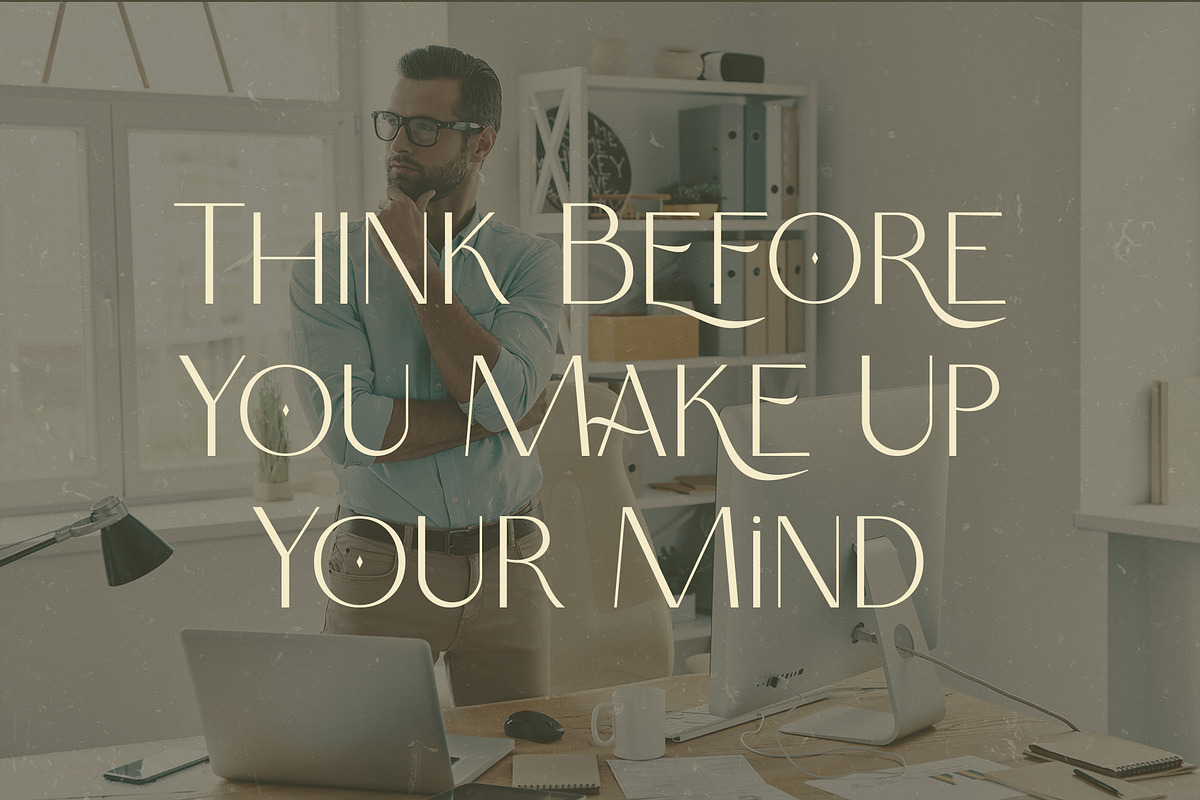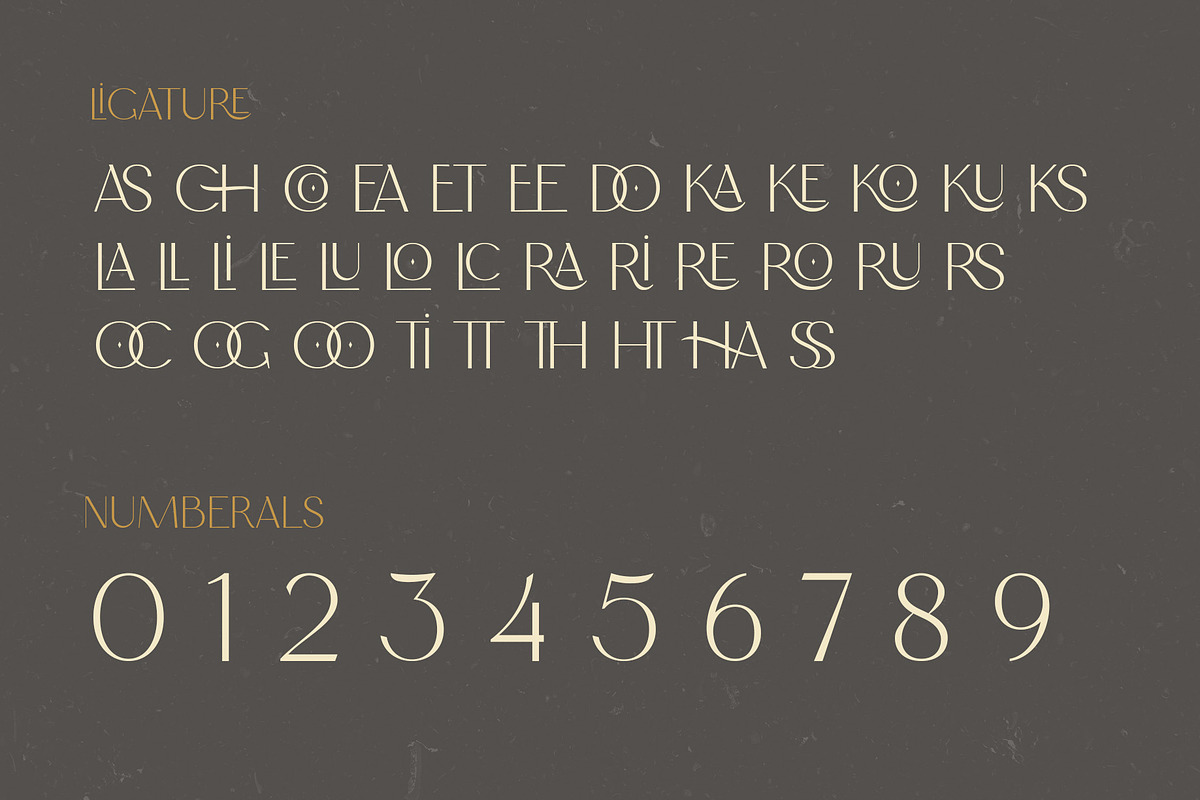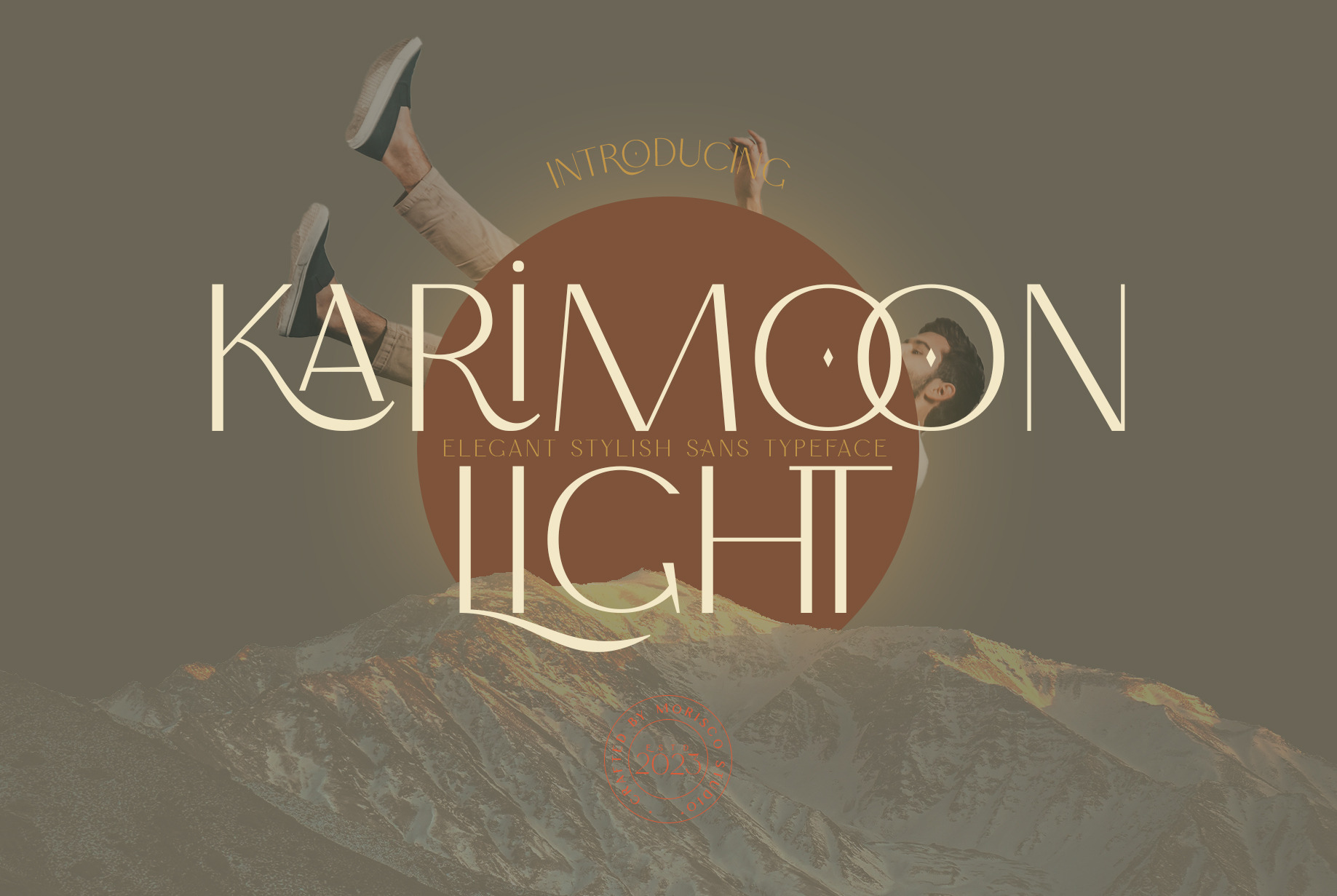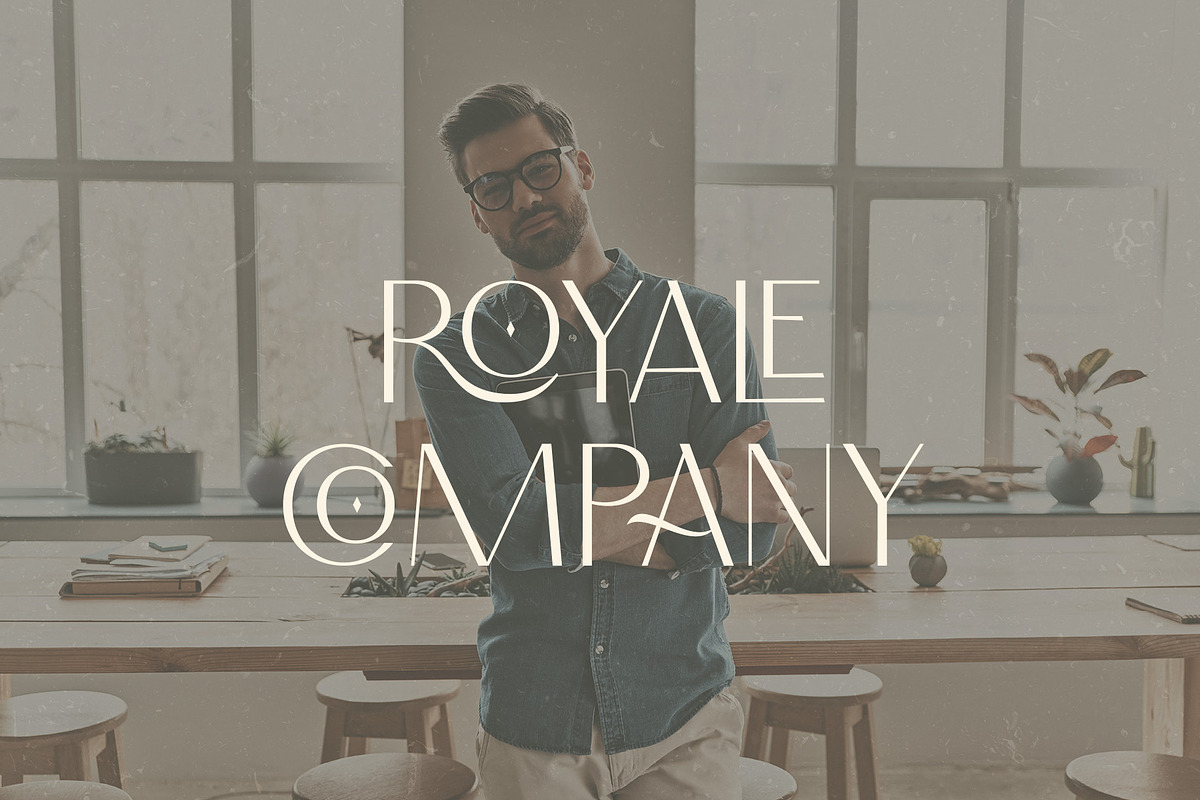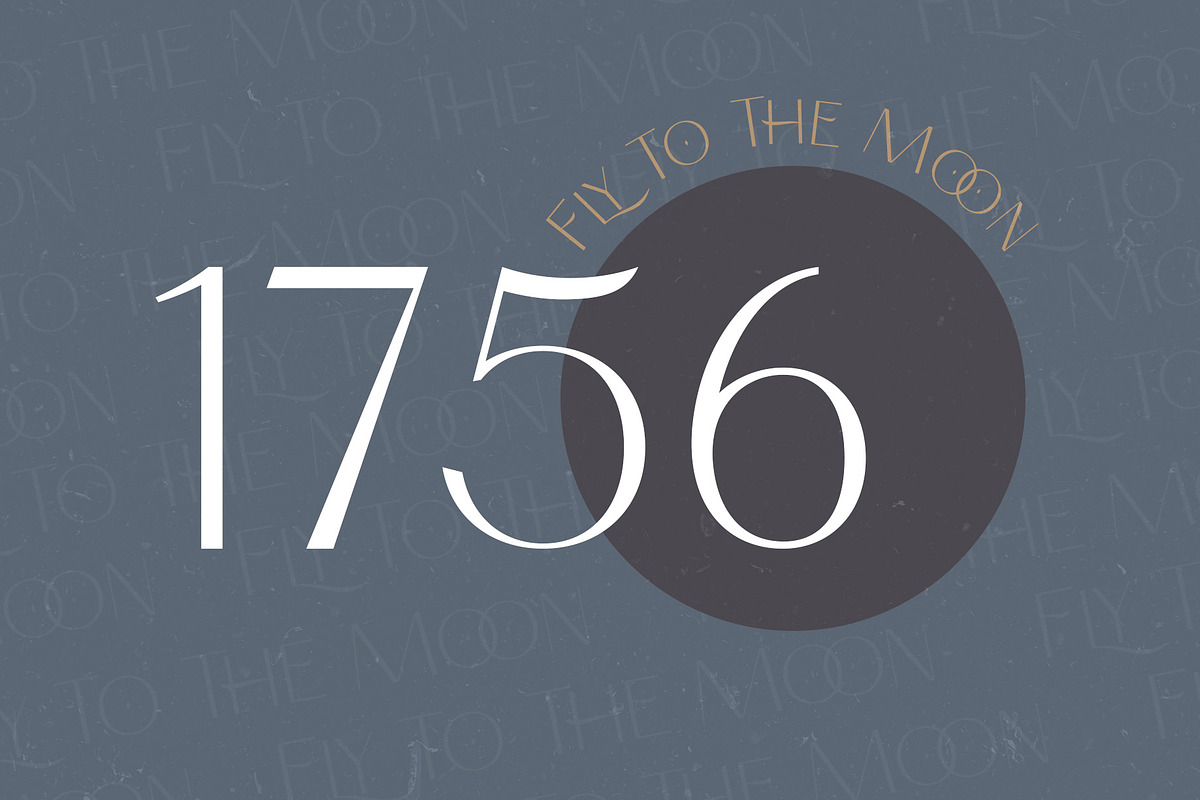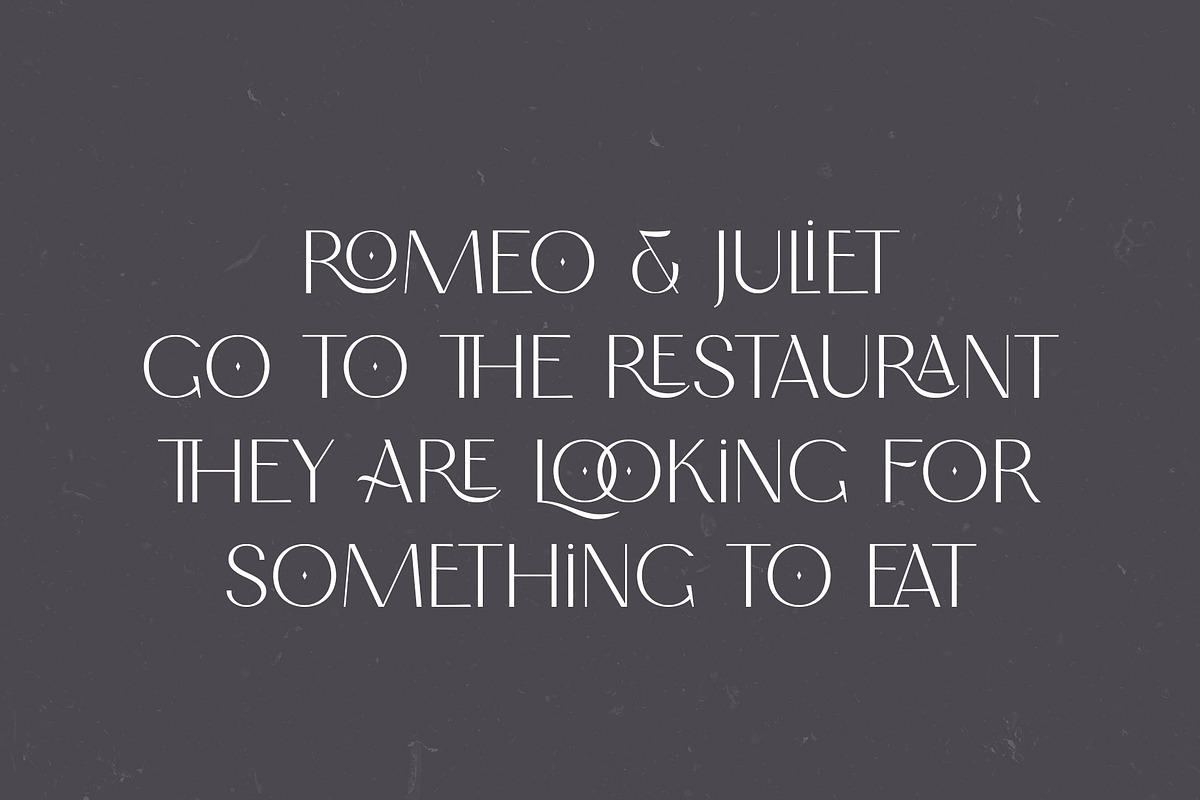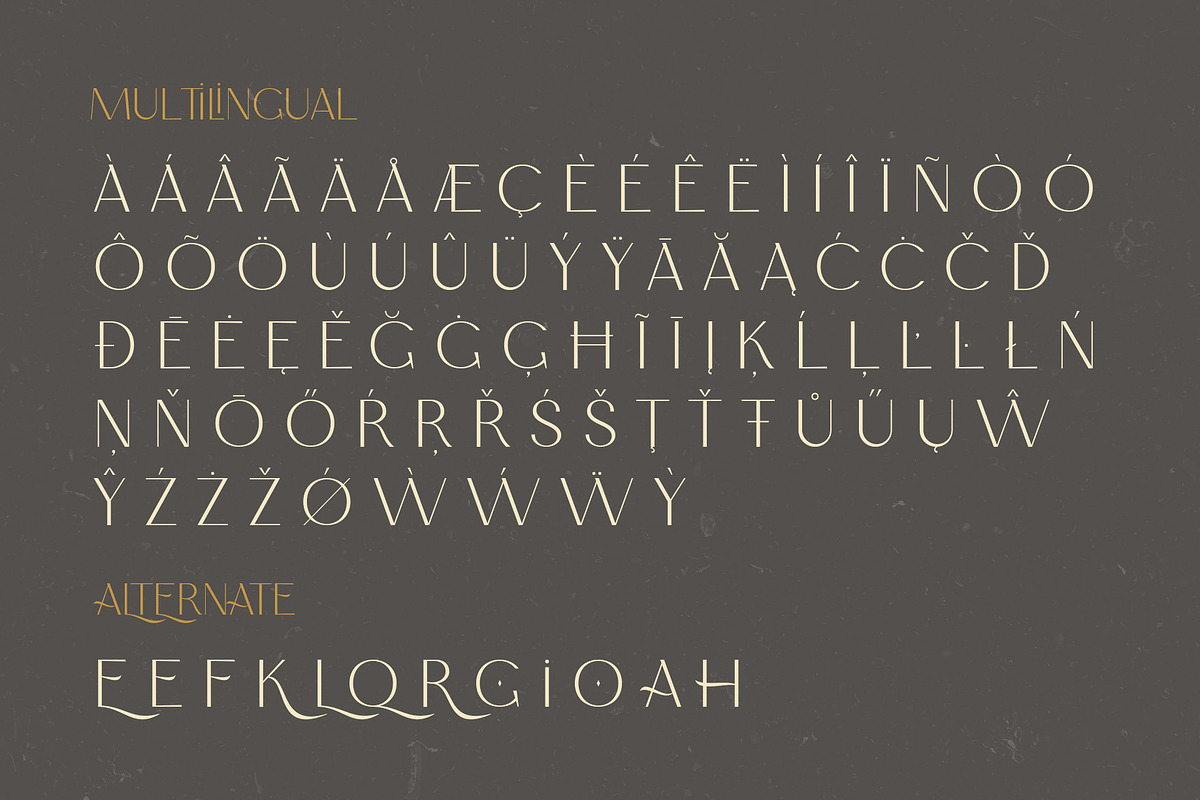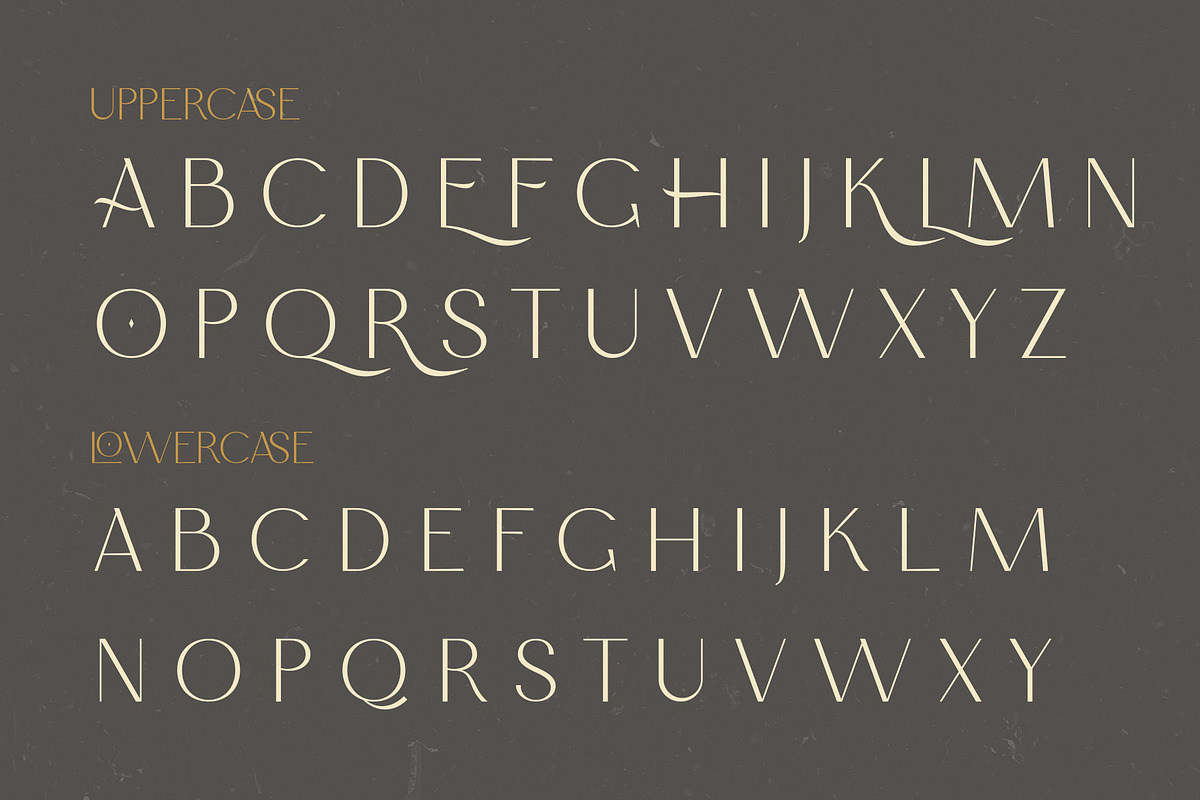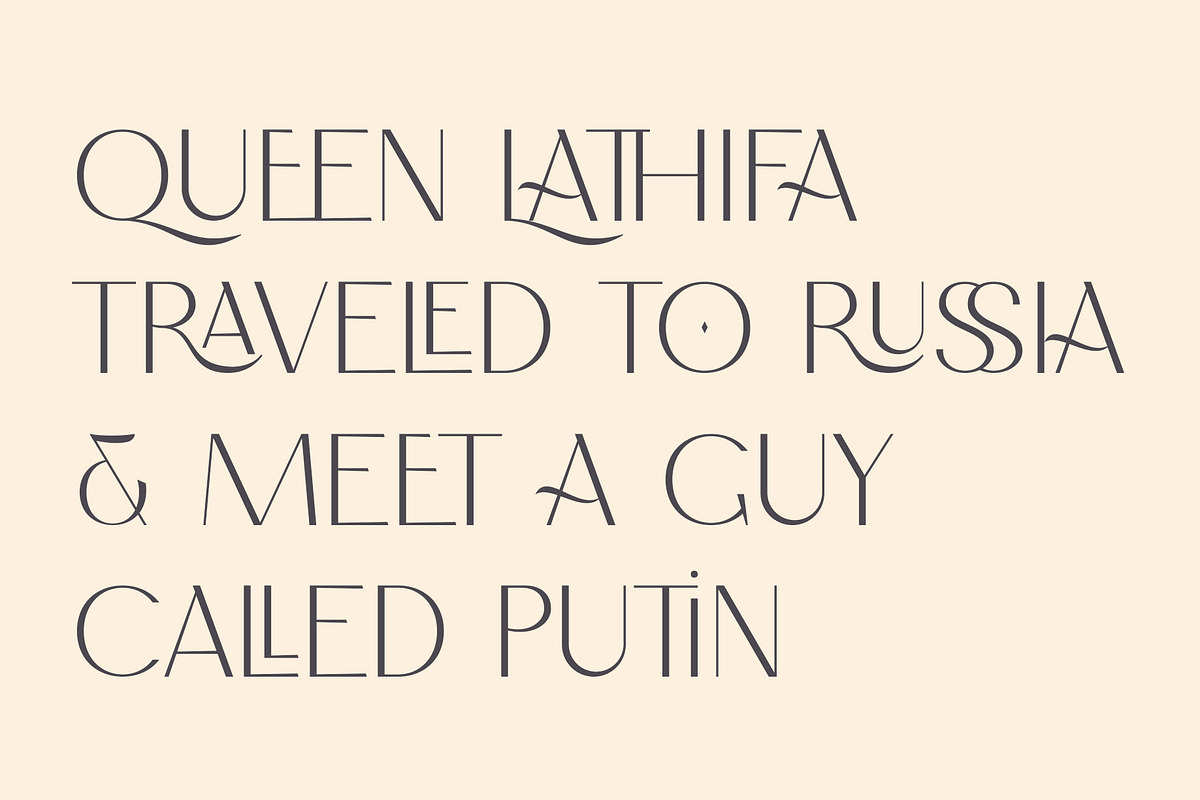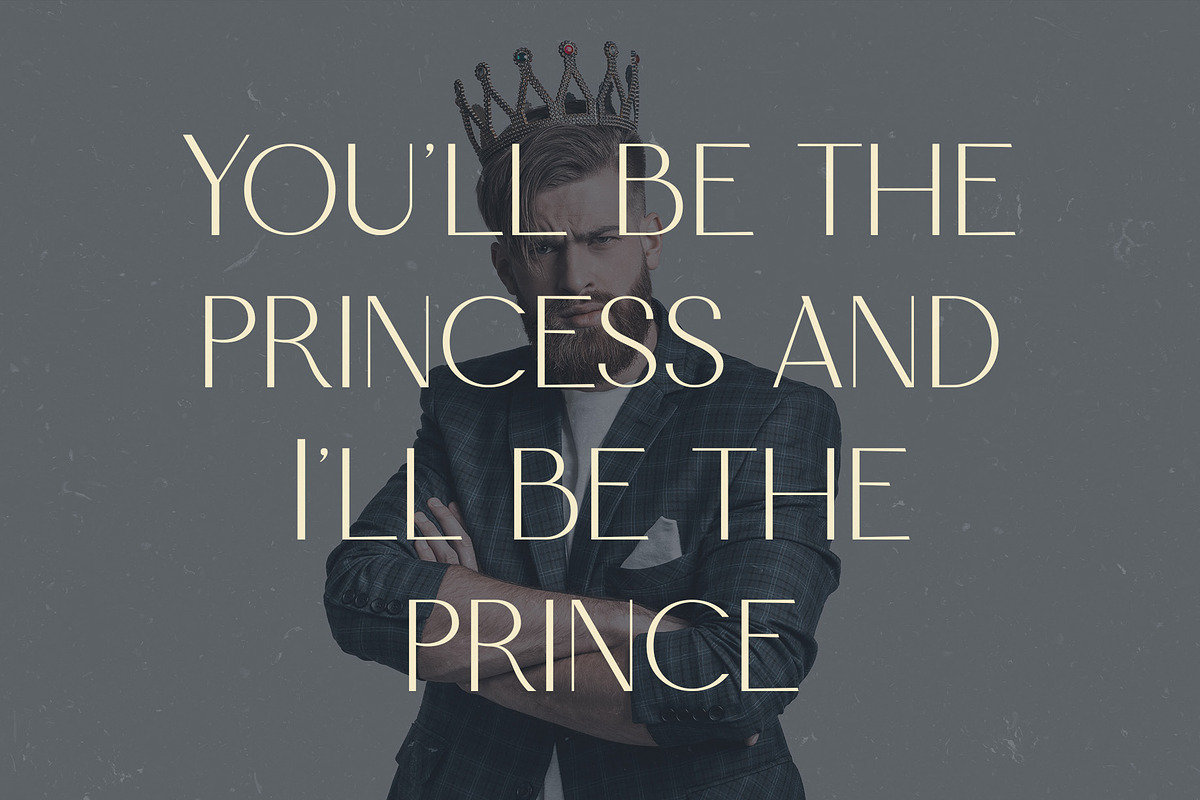
Karimoon Light - Elegant Typeface
Karimoon Light is an elegant stylish sans typeface with a unique character designed by morisco studio. This typeface is well-suited for headlines and any project, like branding, print template, logo, and more. Karimoon is an Arabic word which means noble, and moonlight is the light of the moon. So that it can be interpreted as the light of the glorious moon